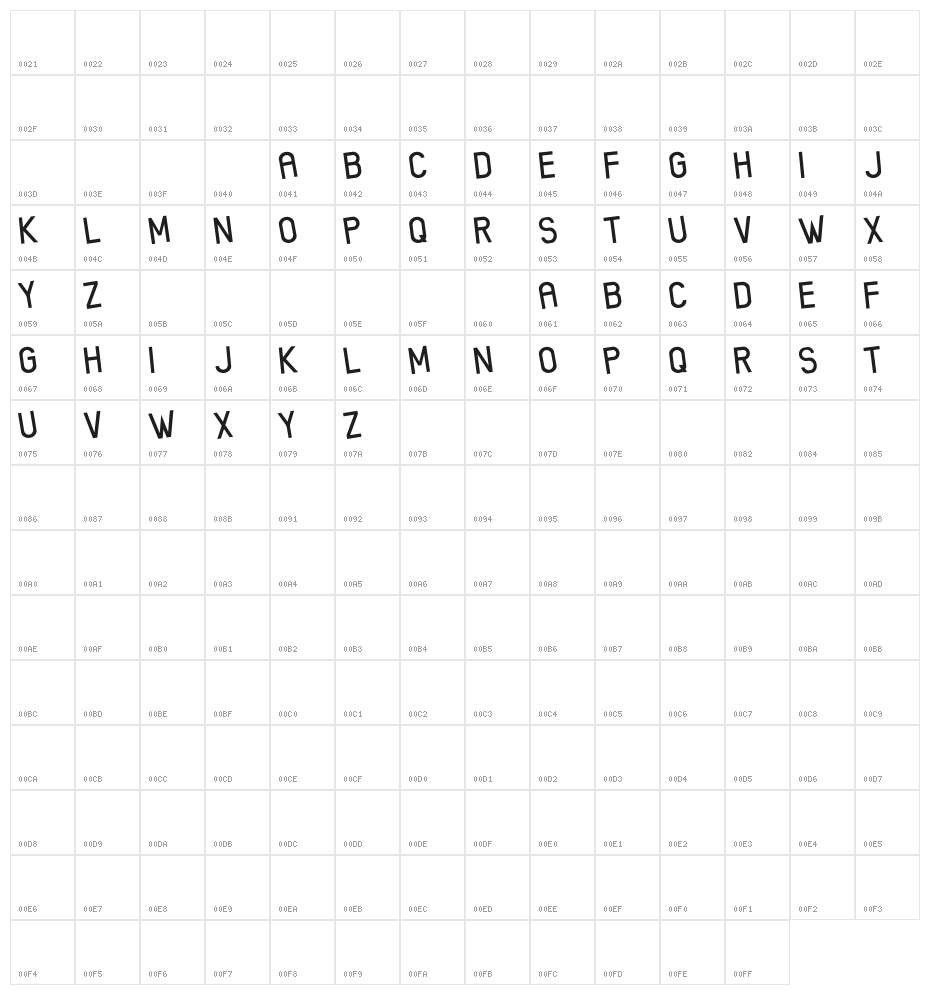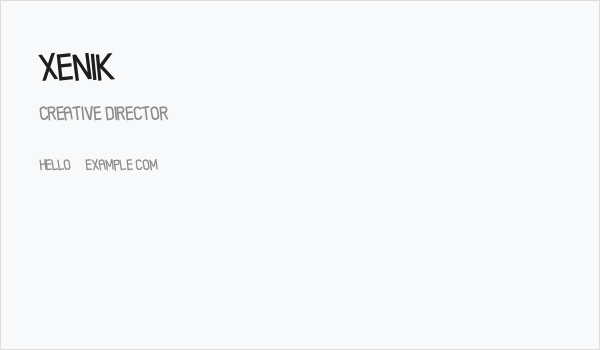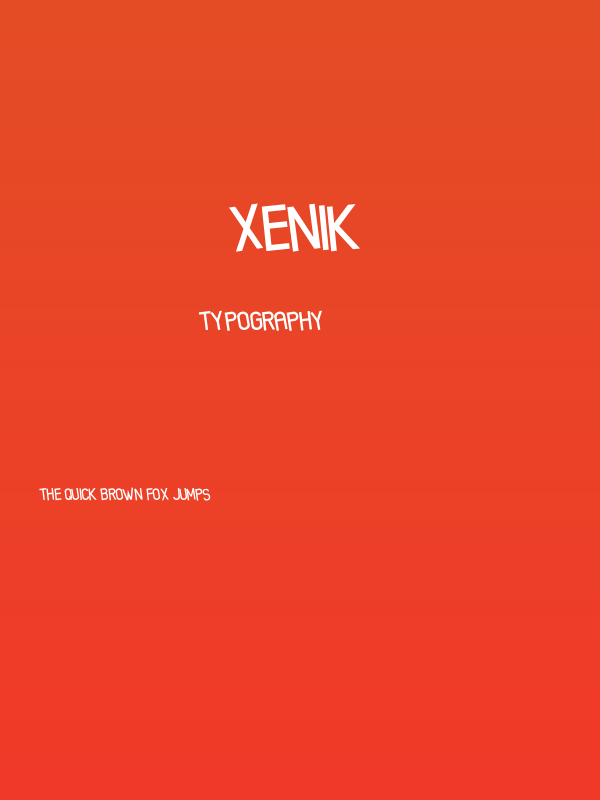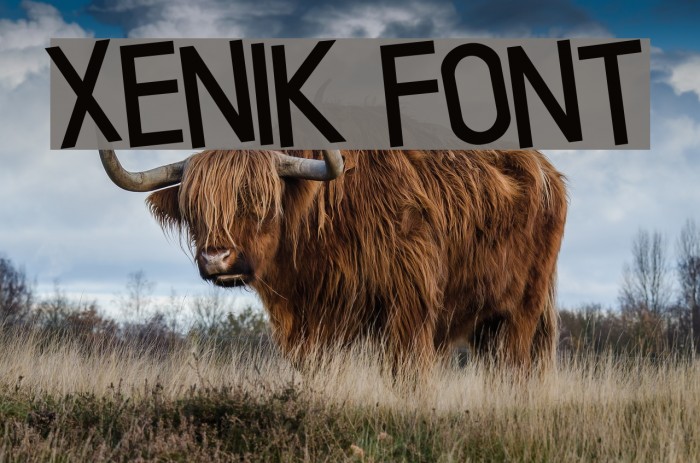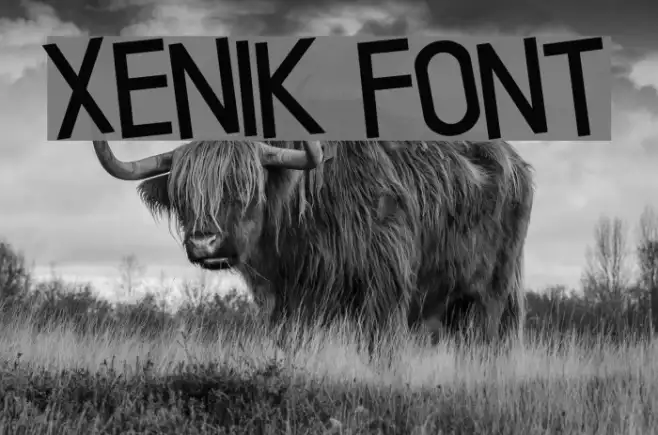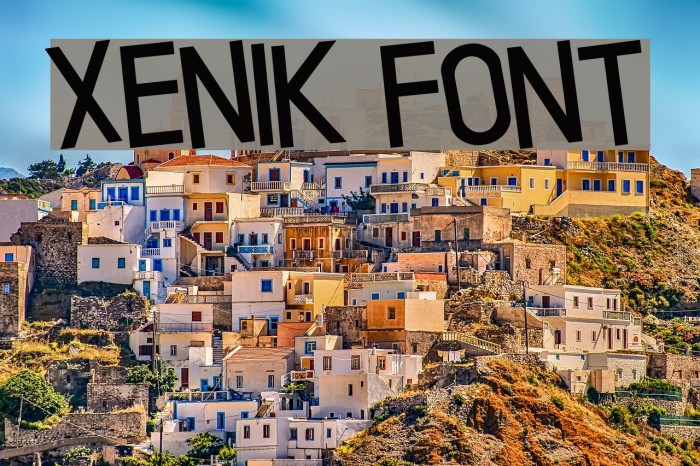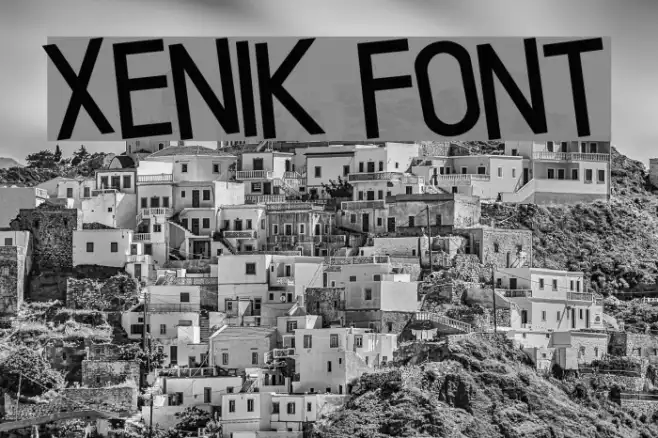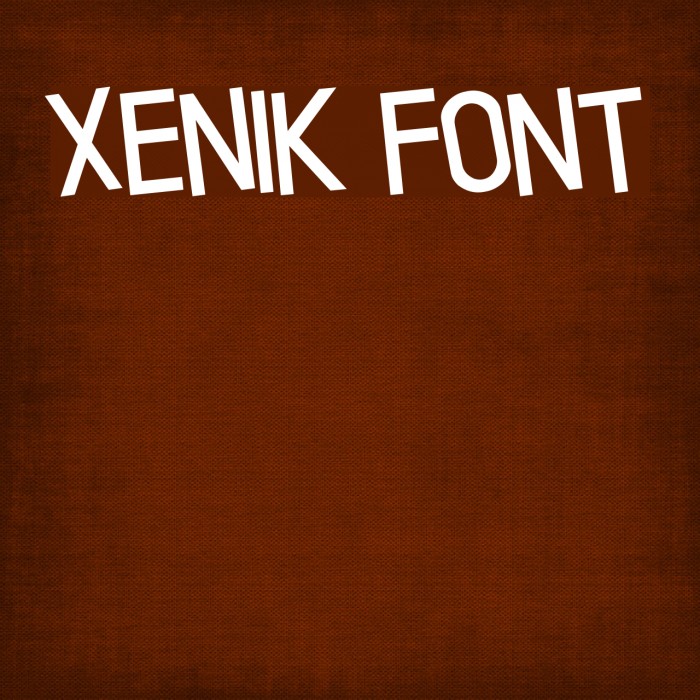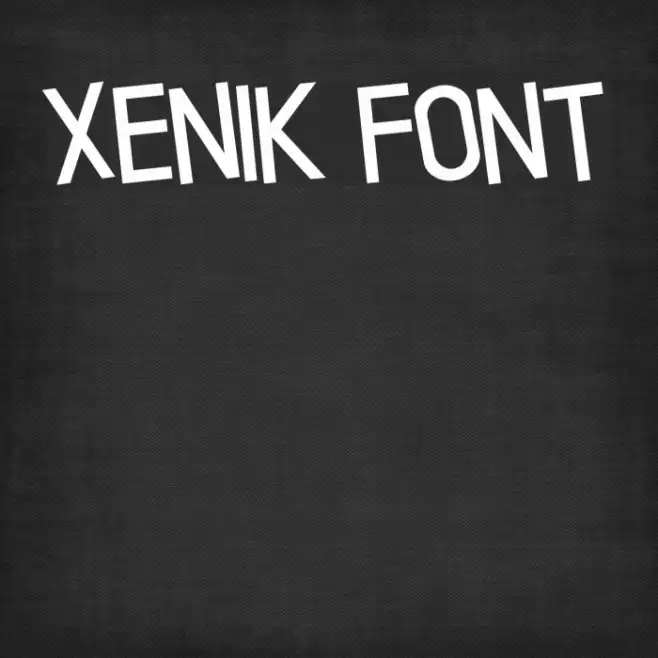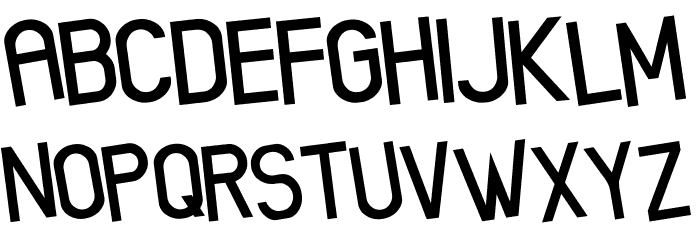
Xenik Font
Xenik Description
This font features a bold and modern design with clean, straight lines and a slight slant, giving it a dynamic and forward-moving appearance. The characters are consistently structured, with uniform stroke widths that contribute to a cohesive and professional look. The uppercase letters are prominent and assertive, making them ideal for attention-grabbing headlines or titles. The overall style is sleek and contemporary, suitable for a variety of digital and print applications. Its geometric form and slight angularity add a touch of uniqueness, making it stand out in design projects.
| Proposed Projects | Ideal for branding, advertising, posters, and digital media where a modern and bold statement is needed. |